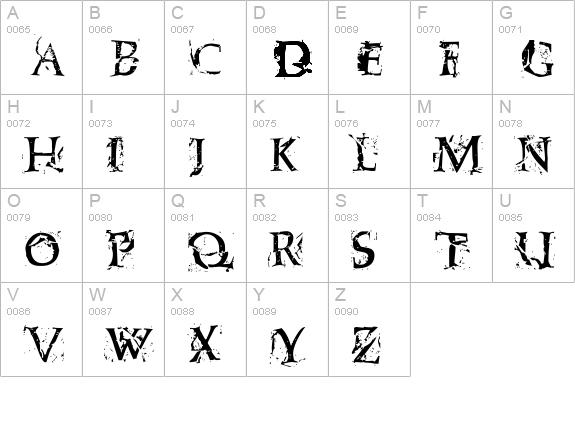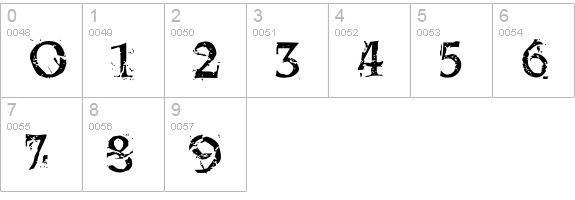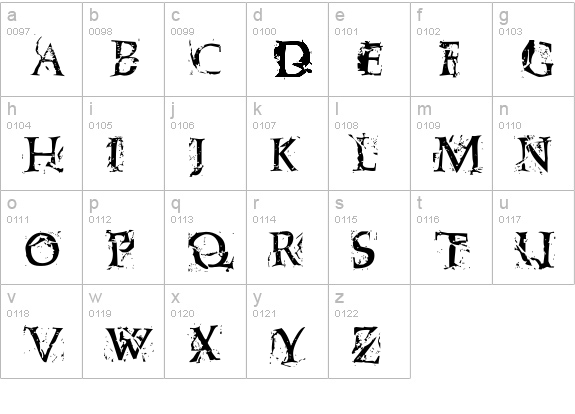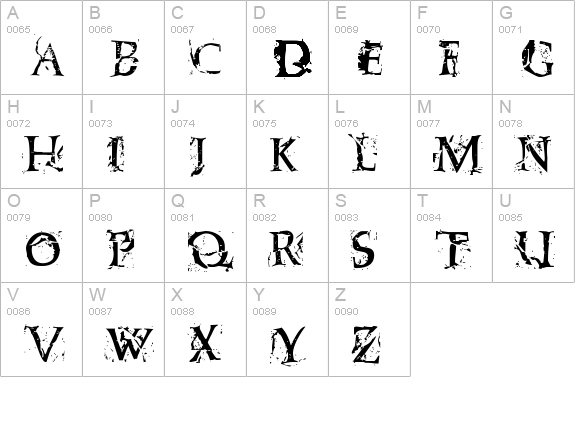
Blasphemy Font Details
Blasphemy font is a striking and bold typeface that exudes power and edginess. With its sharp angles and intricate details, this font is perfect for making a statement in your designs. Whether you're looking to add a touch of rebellion or a hint of mystique, Blasphemy font will not disappoint. The best part? Blasphemy font is available for free download at FontsMarket.com. So, go ahead and unleash your creativity with this unique and captivating typeface. Stand out from the crowd and make a bold statement with Blasphemy font today!